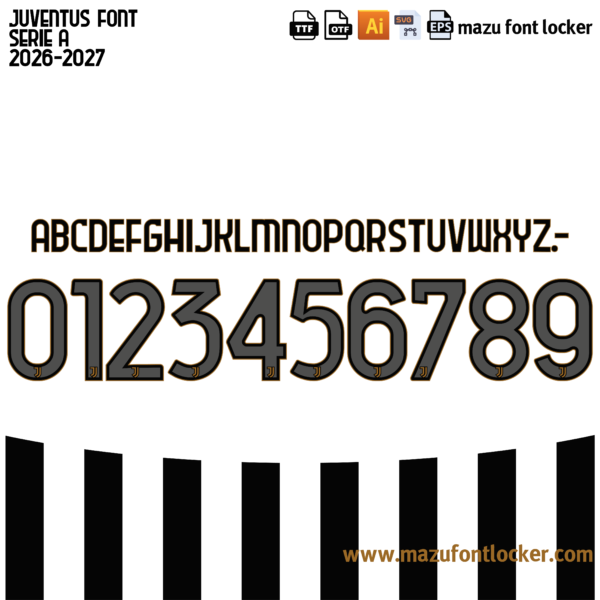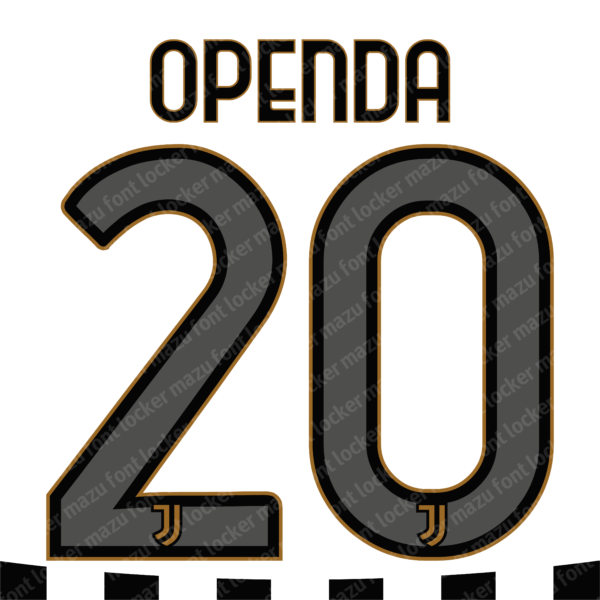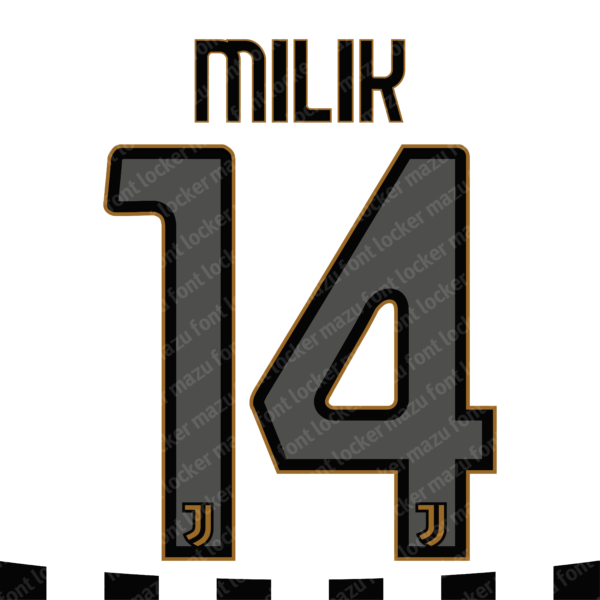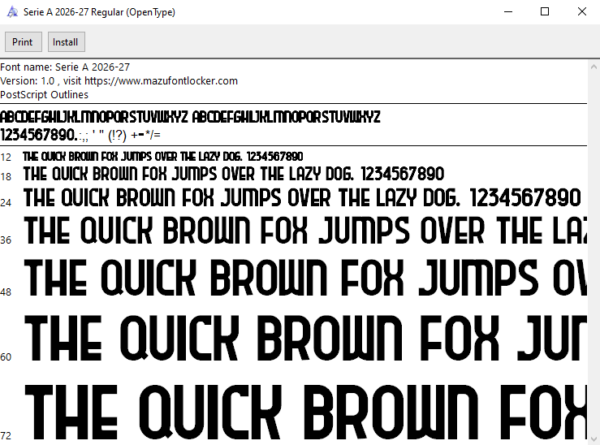
The Juventus 2026-2027 Font is a high-quality font kit that accurately recreates the official match lettering used by Juventus in the 2026/2027 Serie A season. It features a bold, modern, and authentic look perfect for jersey mockups, fan merchandise, posters, and football graphics.
Juventus Font Kit 2026/2027 – Authentic Serie A Typeface
The Juventus 2026-2027 Font is a premium typeface that accurately recreates the official match lettering worn by Juventus during the 2026/2027 Serie A season. This high-quality font kit captures the clean, tall, and modern typography that defines the club’s latest kit design.
Designed for professional designers and passionate Juventus fans, the Juventus 2026-2027 Font delivers perfect authenticity for creating jersey mockups, fan merchandise, matchday posters, social media graphics, and much more. It blends seamlessly with the club’s iconic black-and-white stripes and elegant gold accents.
This font stands out because of its sharp details and professional finish. Every letter and number is crafted to match the exact style used on the players’ shirts this season. Whether you are making realistic shirt templates or eye-catching football content, the Juventus 2026-2027 Font gives your designs that official Serie A look.
The letterforms in the Juventus 2026-2027 Font are narrow, tall, and extremely readable. The strokes have a controlled weight that appears strong and powerful on the back of jerseys without looking heavy or bulky.
The numerals use bold curves and firm edges, giving them a premium and modern appearance. This design ensures excellent legibility whether used in large print formats, digital mockups, or video content.
• Full uppercase A–Z and numbers 0–9 in authentic Juventus 2026-2027 style
• Special Juventus logo glyph for accurate shirt number detailing
• Create highly realistic Serie A jersey mockups with accurate lettering
• Design stunning matchday posters, score graphics, and squad announcements
• Produce custom Juventus merchandise with a polished, professional football aesthetic
• Includes the exact logo glyph placement used under player numbers